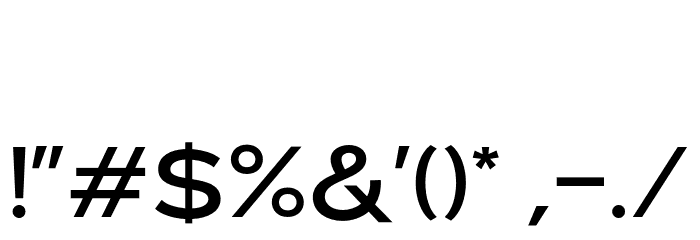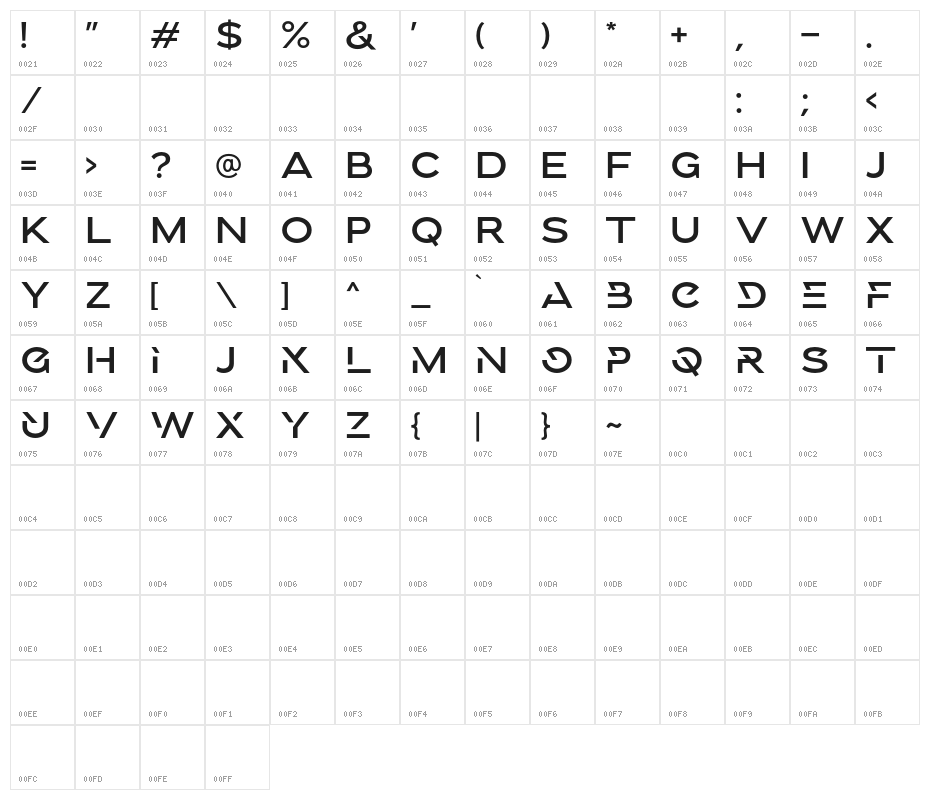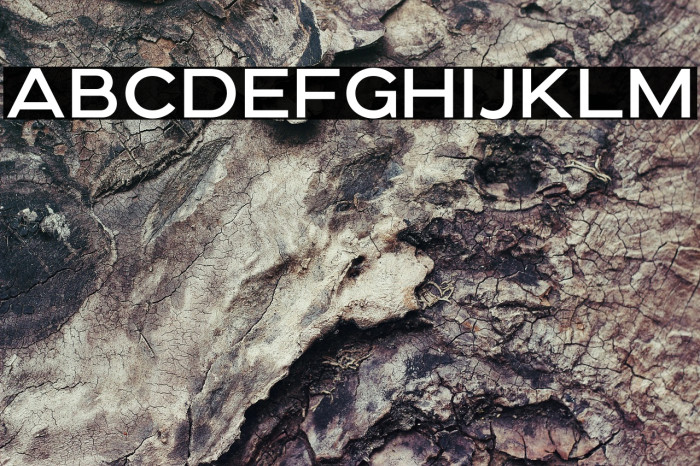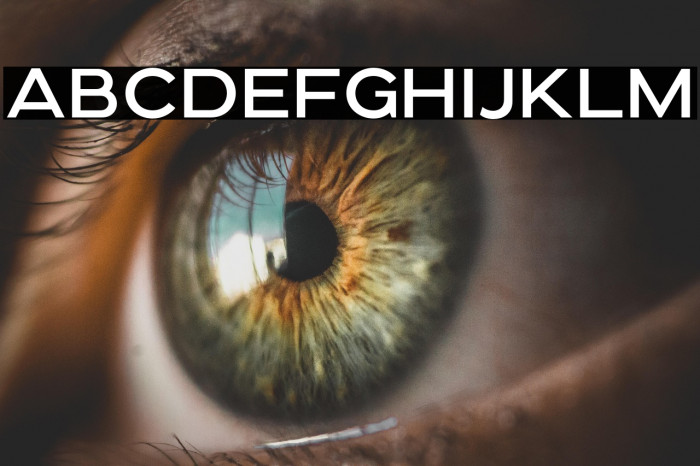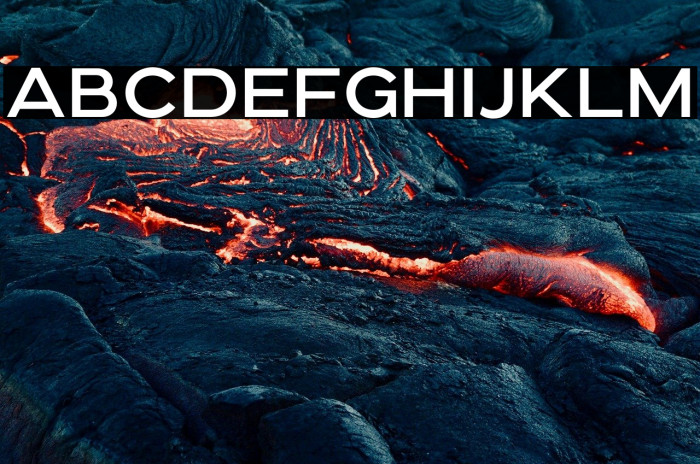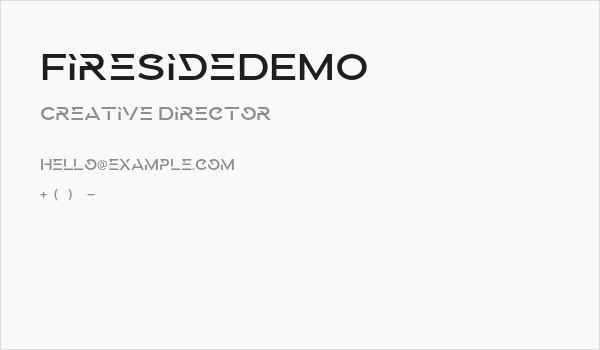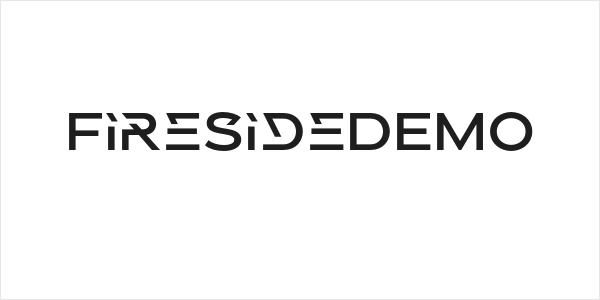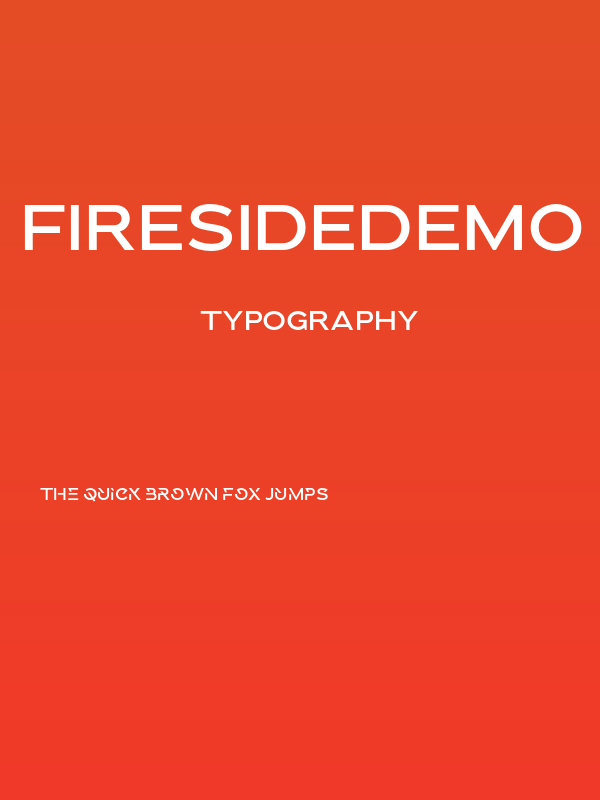
FiresideDEMO Font
FiresideDEMO Description
This font features a modern and bold design with geometric elements that create a sense of movement and energy. The uppercase letters are distinct with sharp angles and clean lines, while the lowercase letters maintain a consistent style that complements the uppercase. The numerals are straightforward and align well with the overall aesthetic. Special characters are designed to match the boldness and geometric nature of the font, making it versatile for various uses. The font's unique style makes it suitable for projects that require a contemporary and dynamic look.
| Proposed Projects | Ideal for branding, advertising, headlines, and modern digital content. |